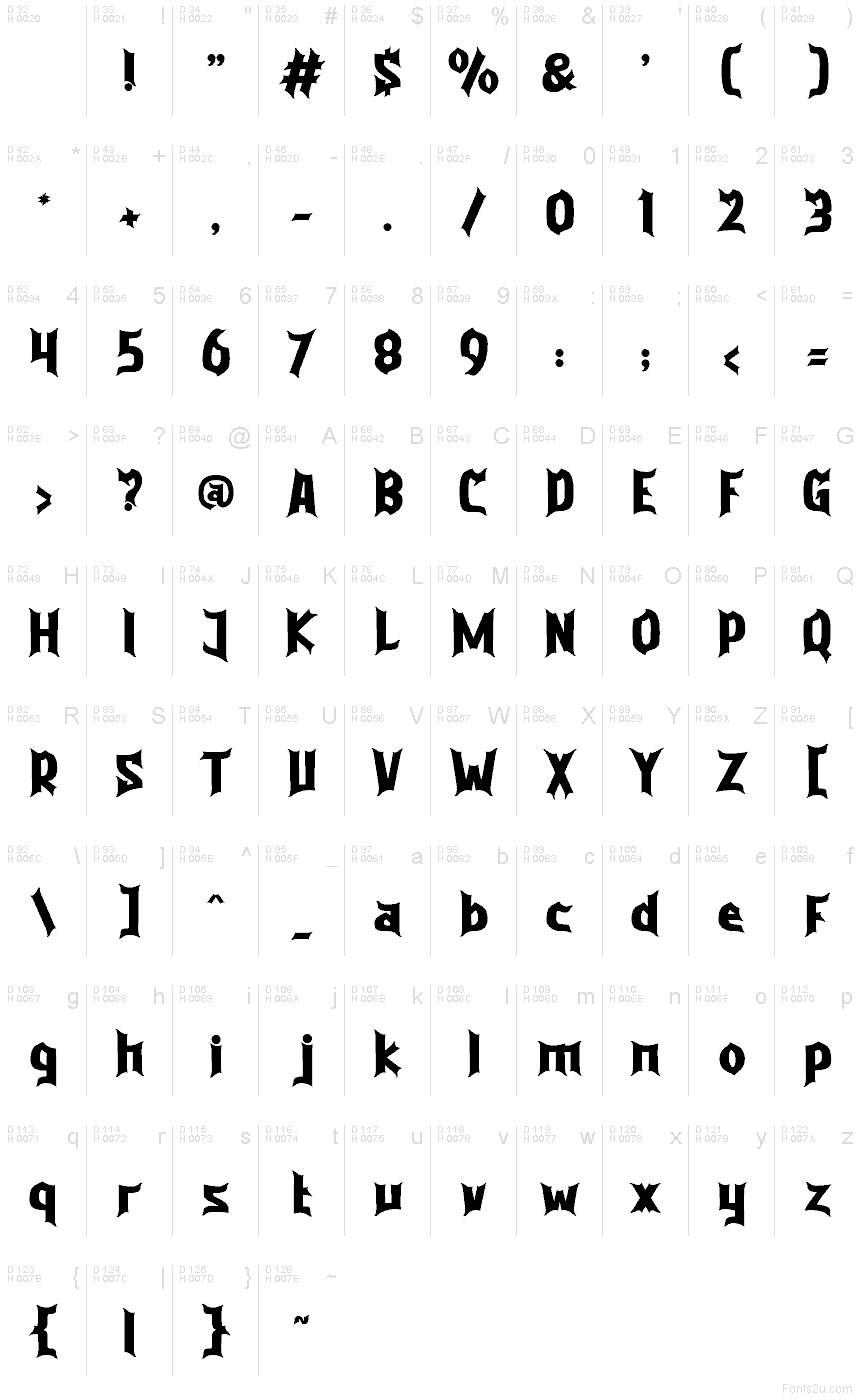
Purgatorie
Purgatorie font by PutraCetol Studio is a free Halloween display font. Its jagged blackletter bones, coffin-lid angles, and slightly dripped strokes land with a theatrical thud—dark, bold, and readable from across the street. The letters feel carved rather than drawn, with sharp notches and smoky curves that conjure haunted doors, graveyard signs, and candlelit posters.
Using Purgatorie, headlines snap to attention on haunted house flyers, party invitations, escape room posters, horror YouTube thumbnails, pumpkin-carving templates, and seasonal café boards. The rhythm is tight and weighty, so it shines on big, high-contrast layouts and photo overlays. Pair this free font with a clean geometric sans for body copy, and keep Purgatorie large for titles to let those eerie spires breathe.